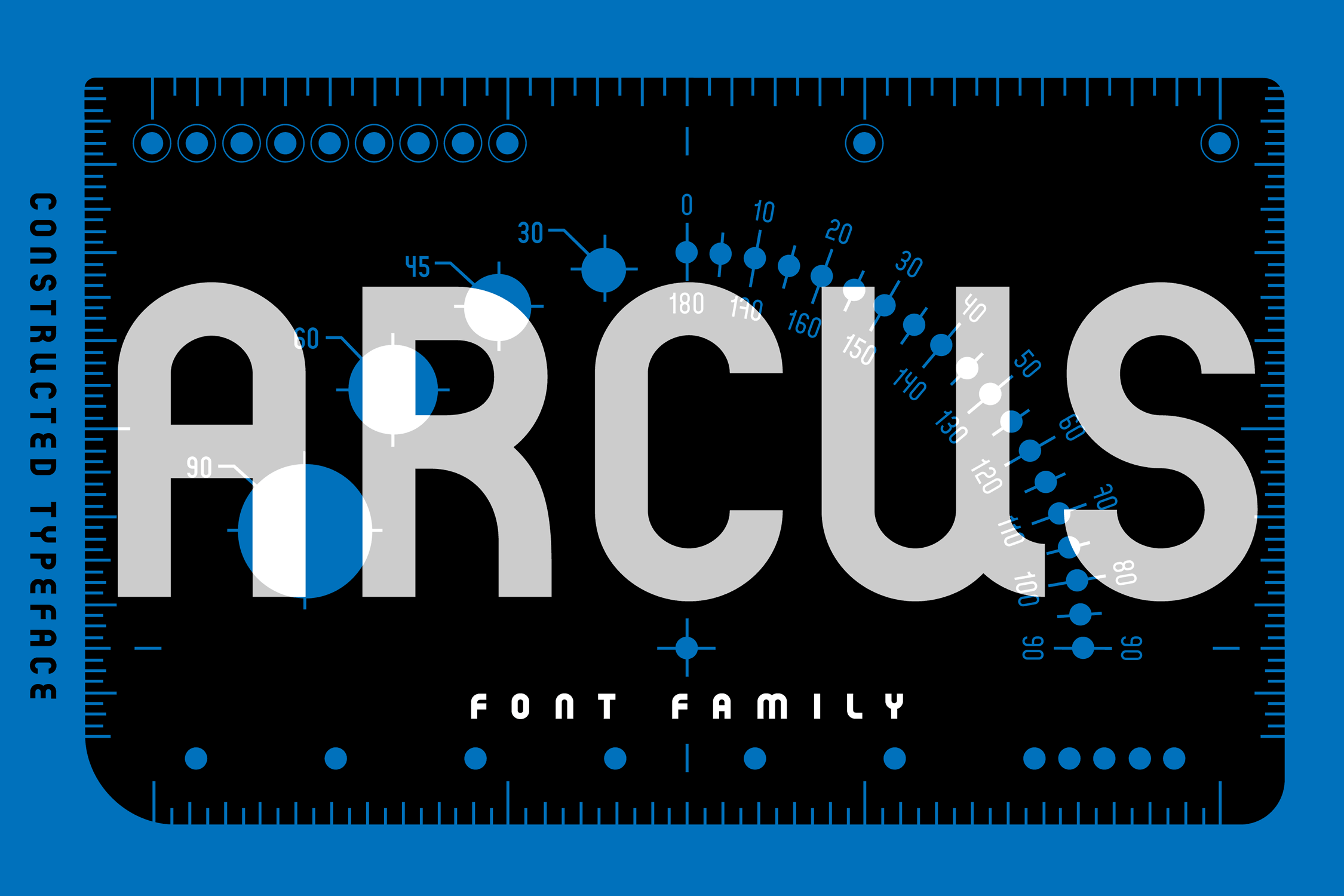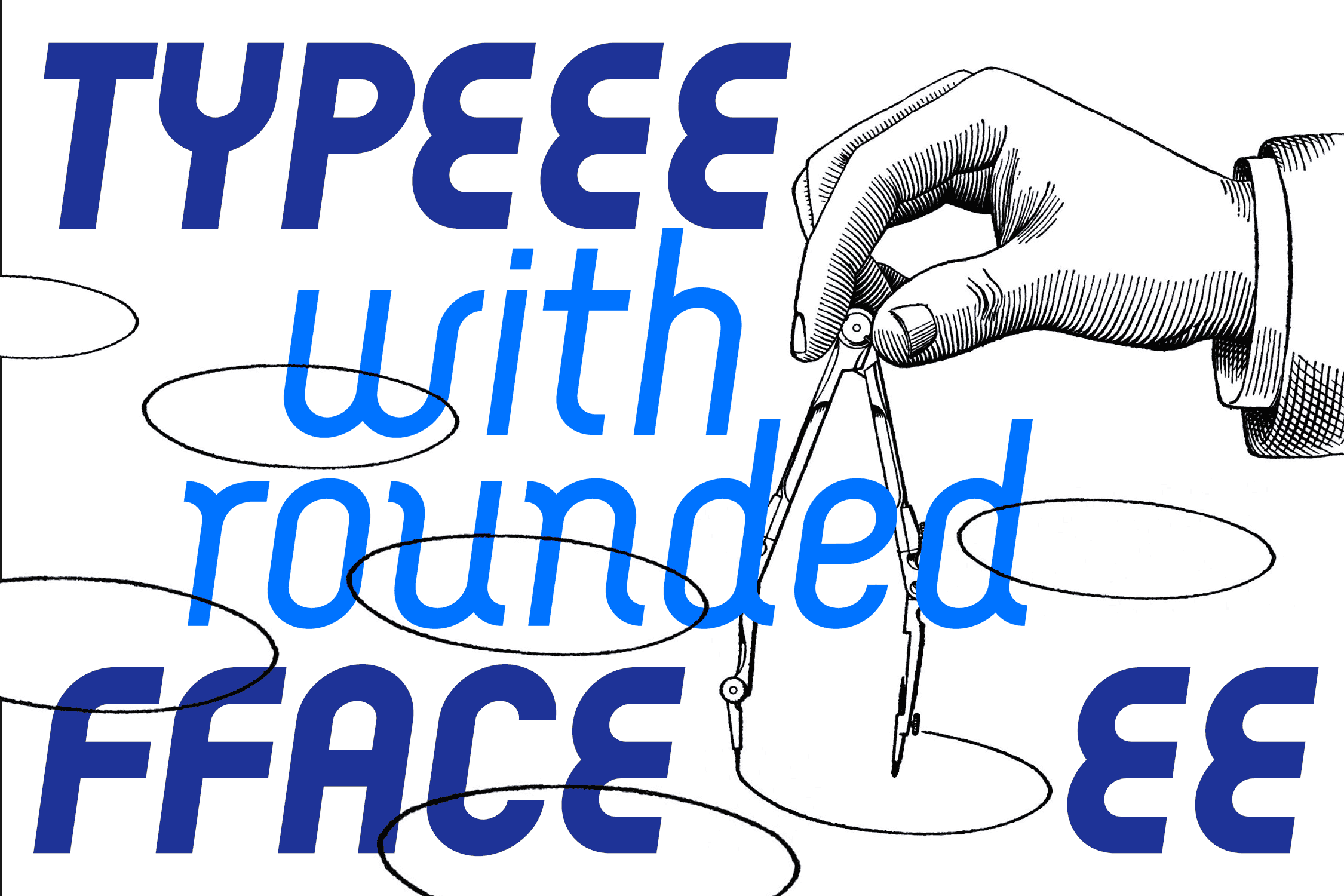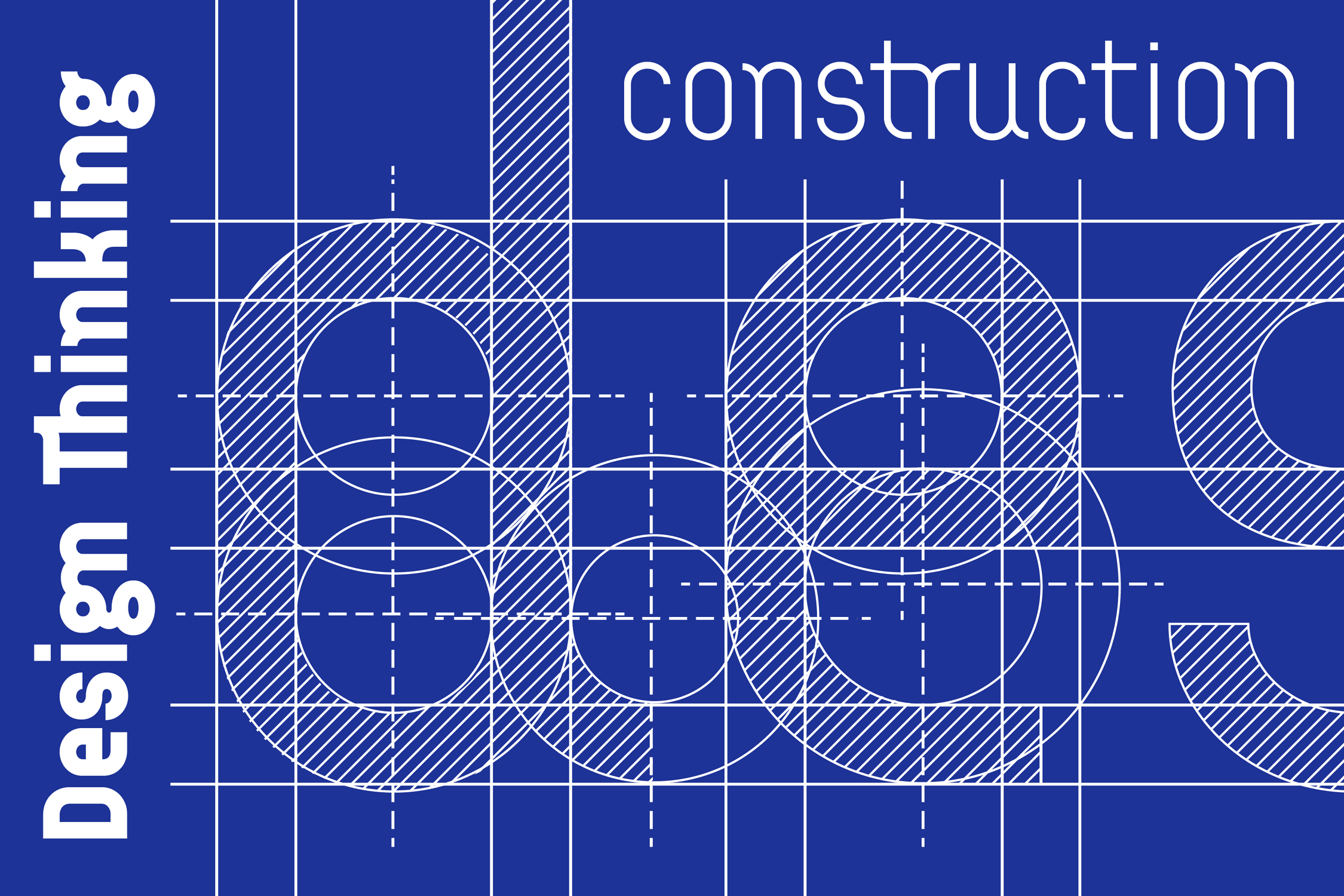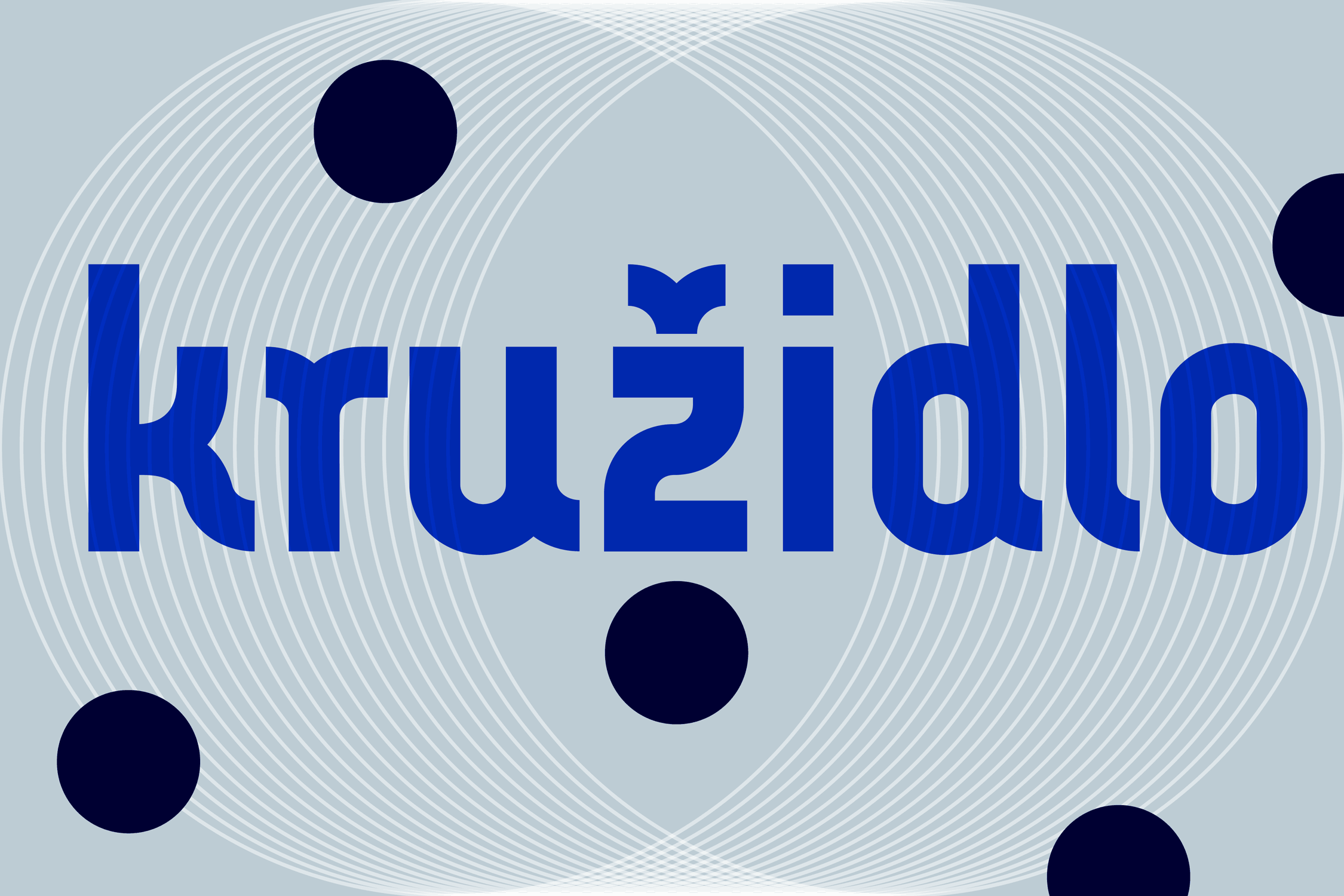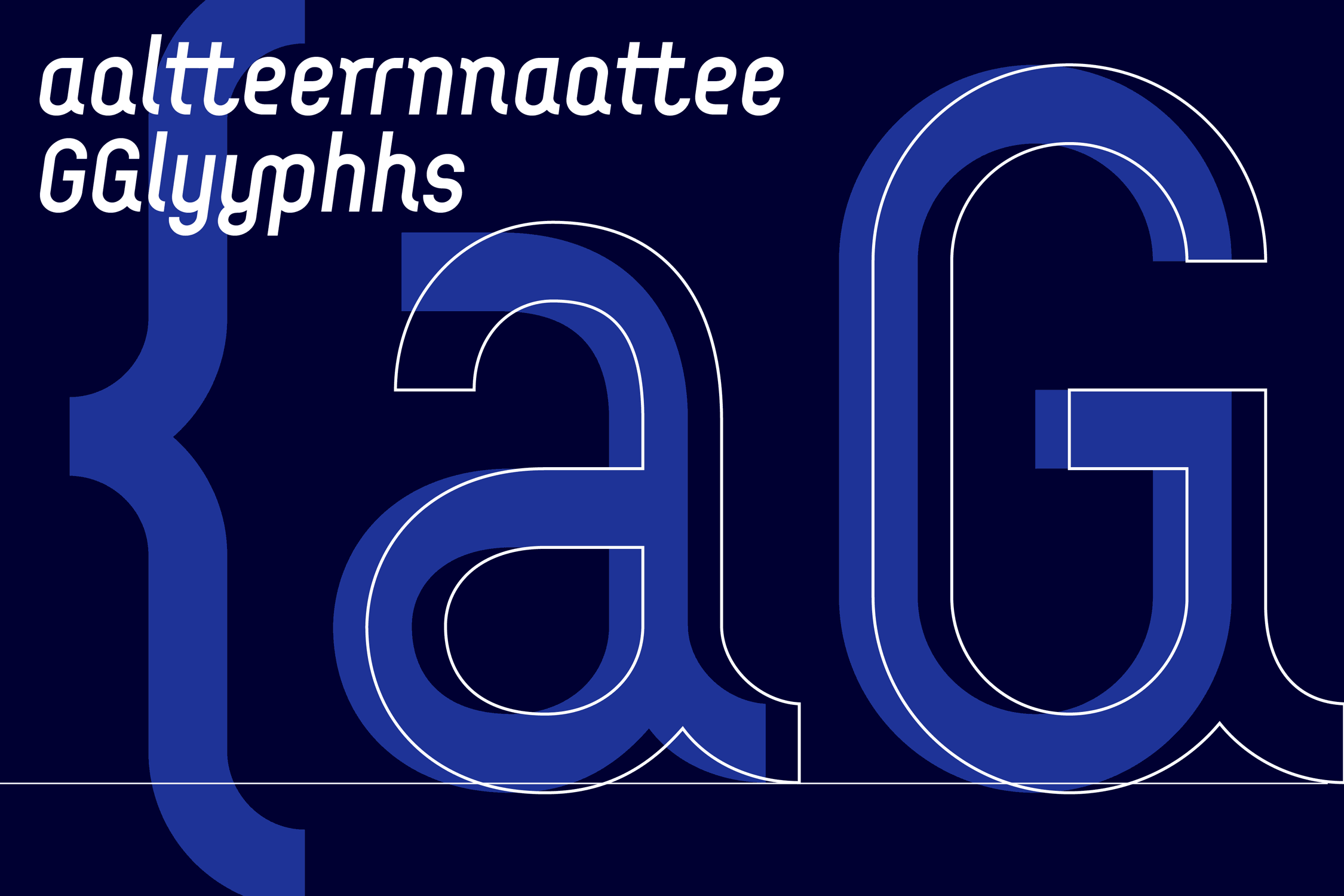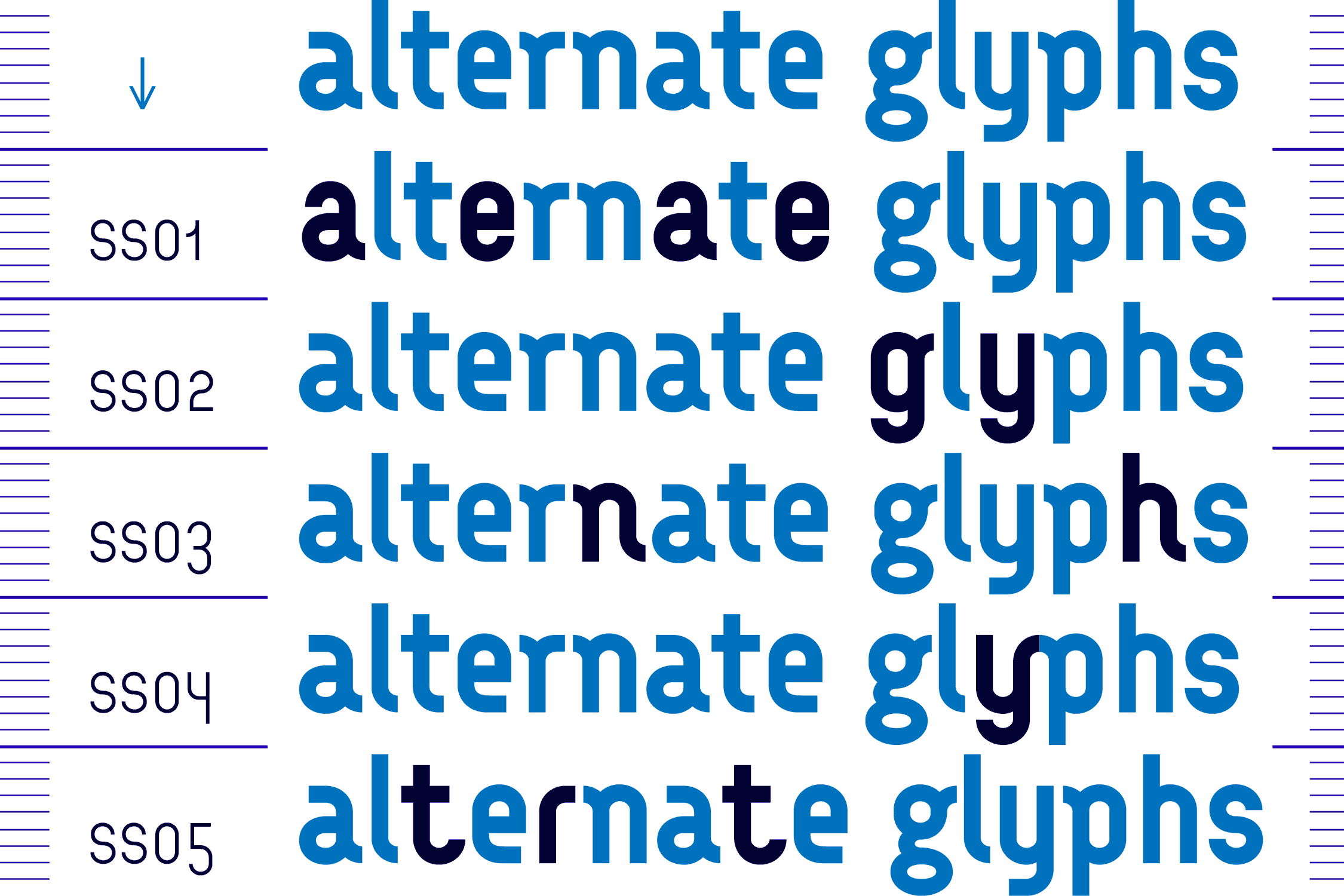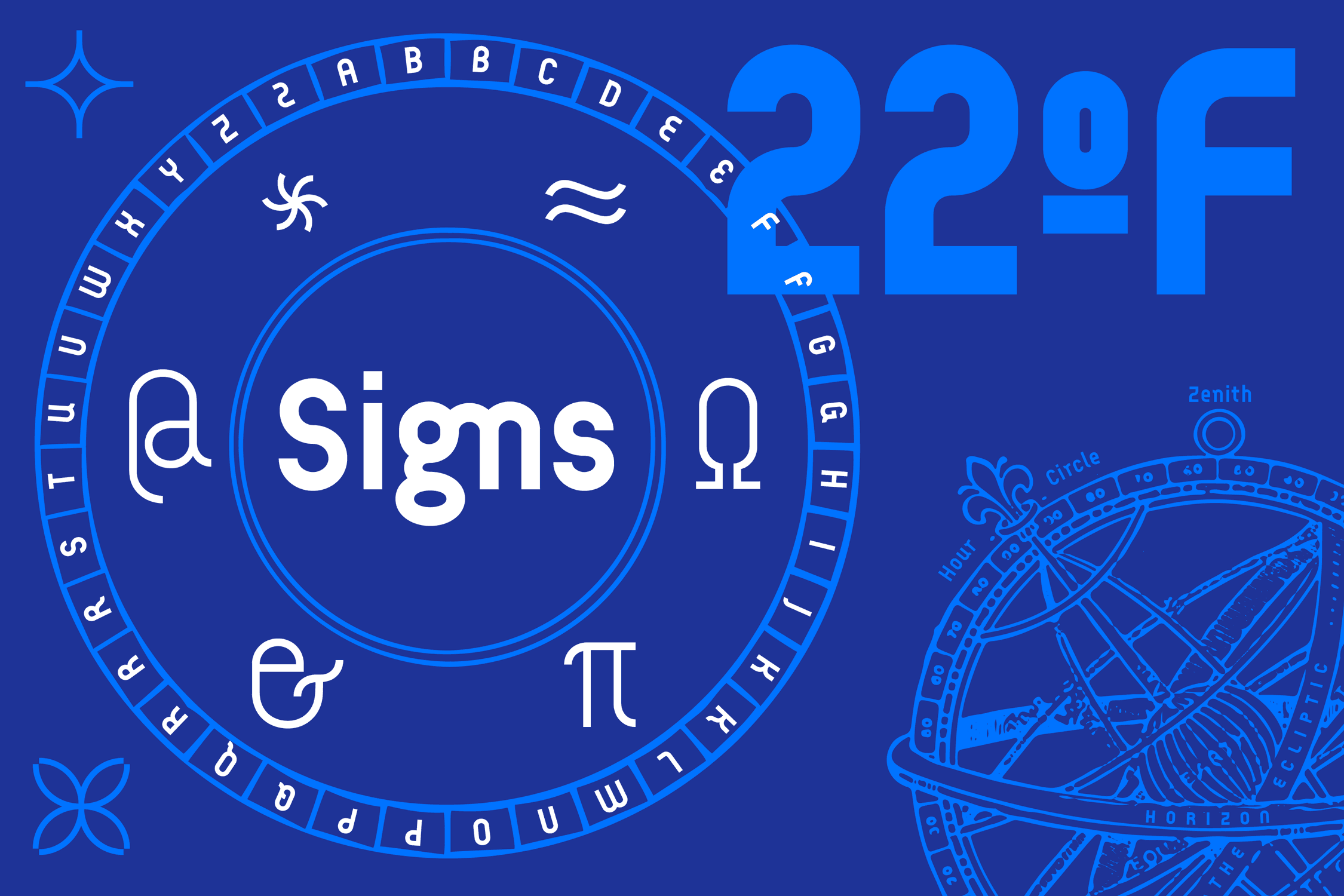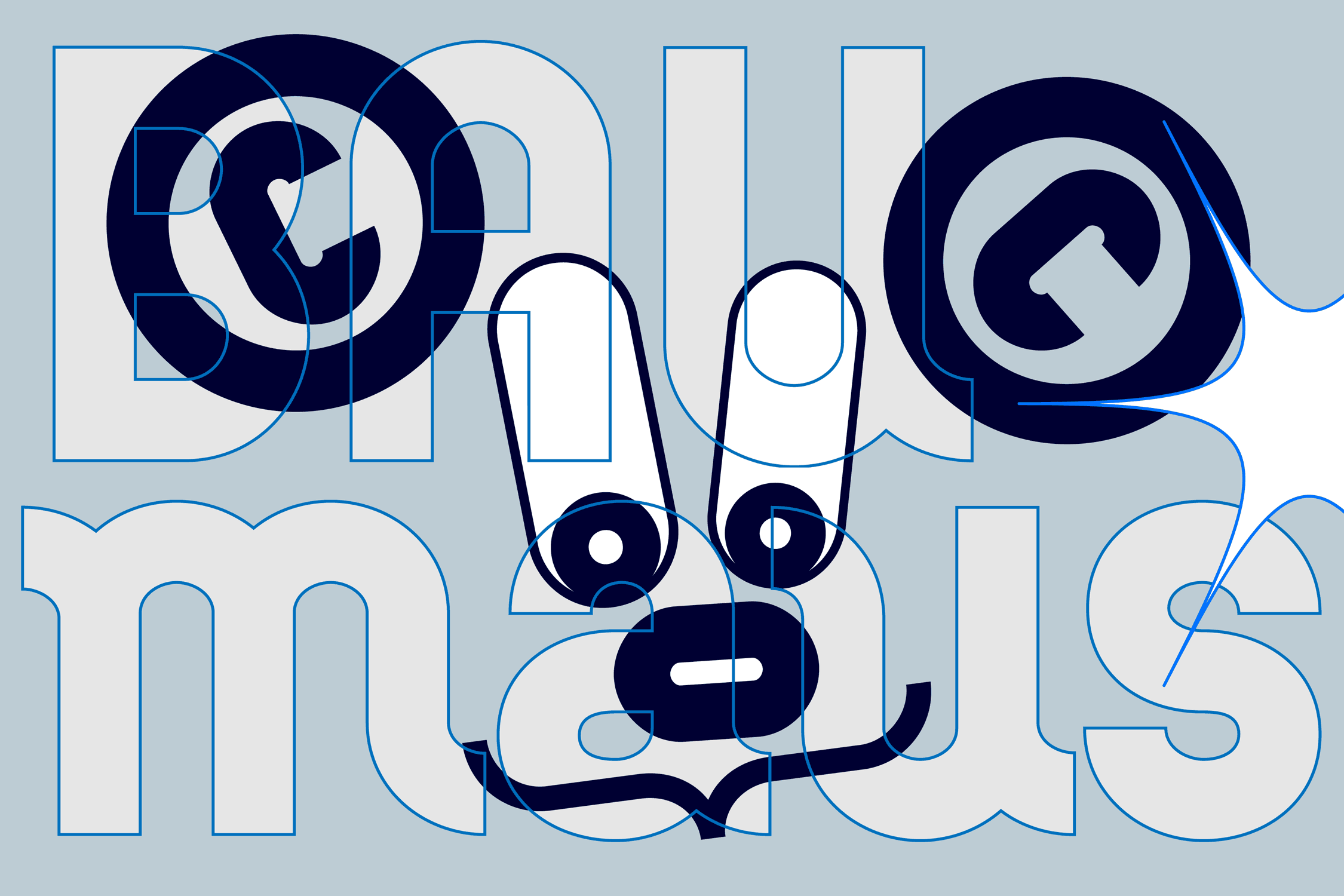
Arcus
This circle based construction face gives visual smart but fresh look. Once you are bored with DIN typeface, this is your next choice. The dictate of the arc determined shapes not only for the letters but also for diacritics. Such proposals generate the engaging communicational language. An Extra visual play you reach by using the wide range of its open type features.